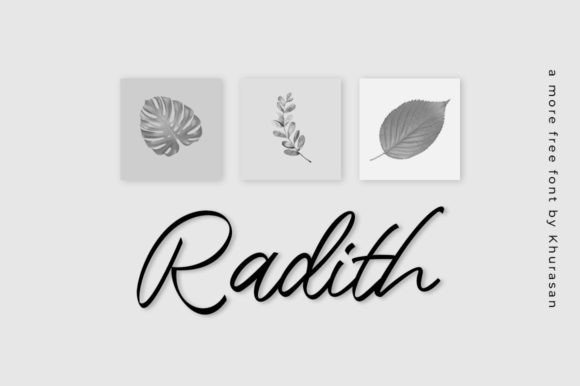
Radith Handwritten Font
This is a free signature typeface with natural lines it gives the impression of serious, elegant, classic, and creative. Perfect for posters, logos, magazines, book covers, banners, and many more! Get this amazing freebie, and use it to create lovely designs!